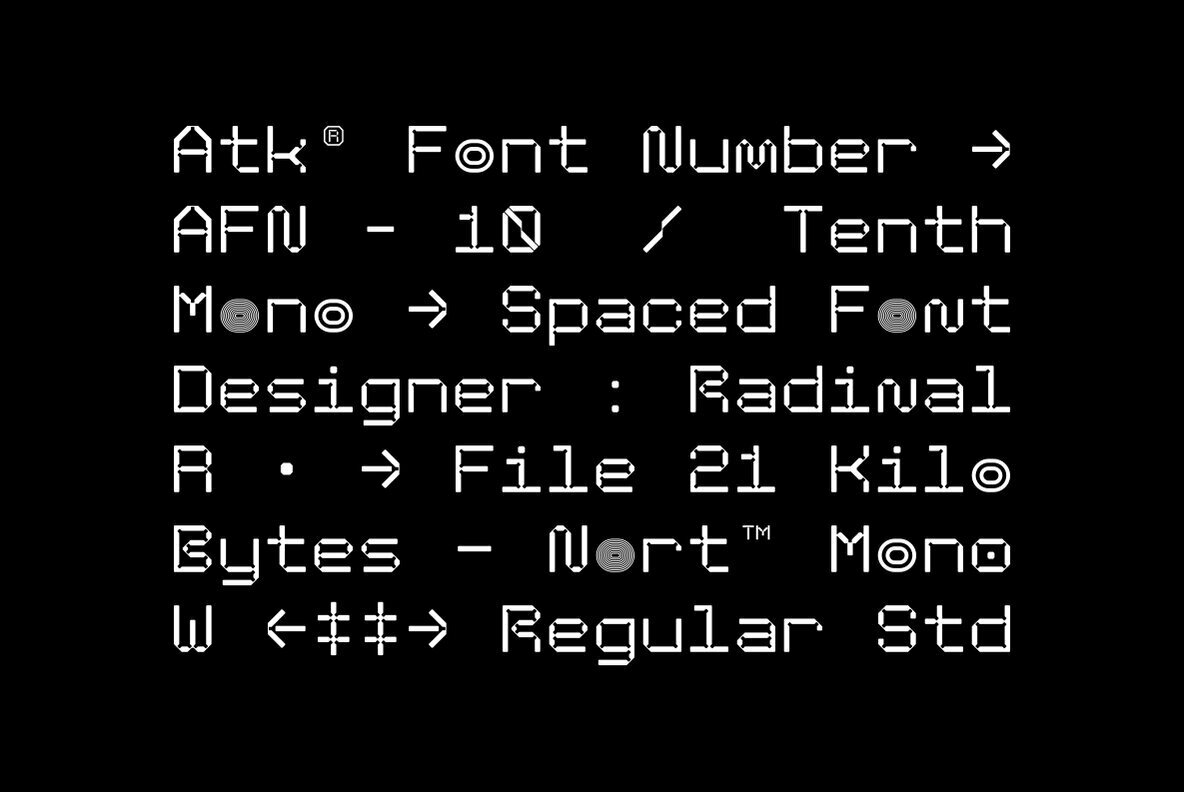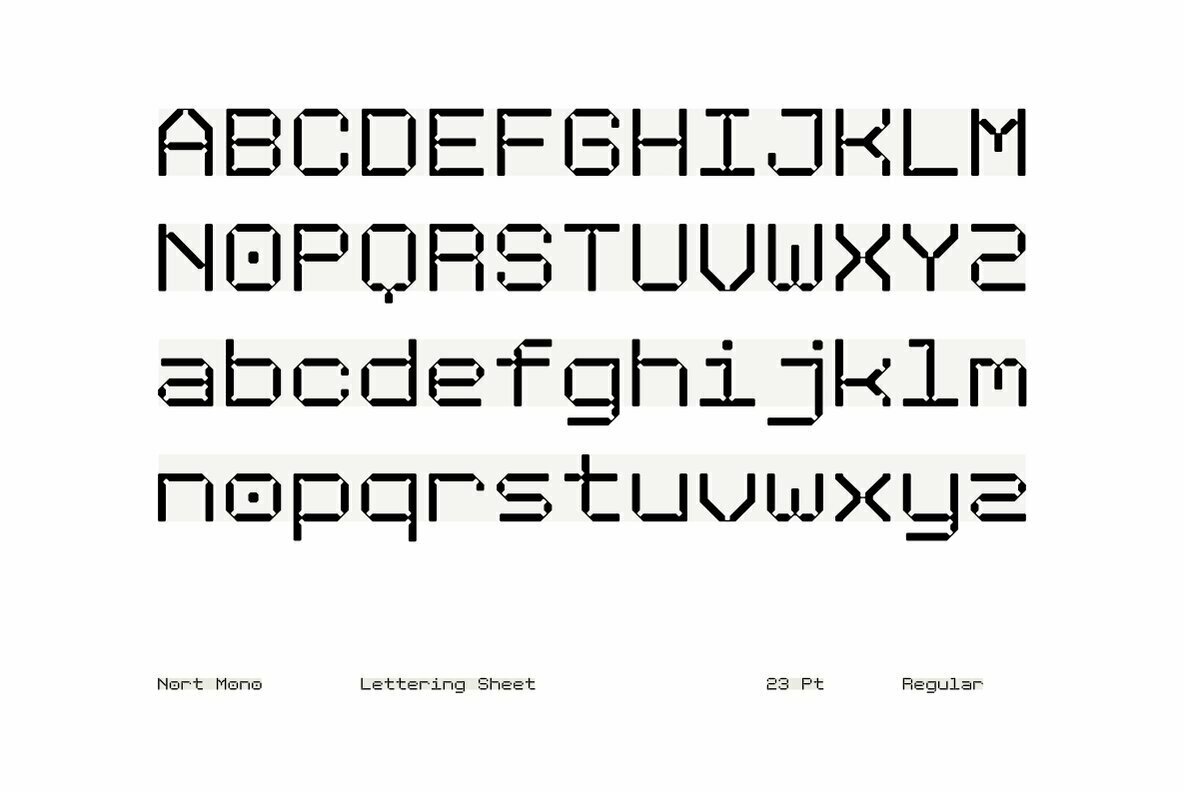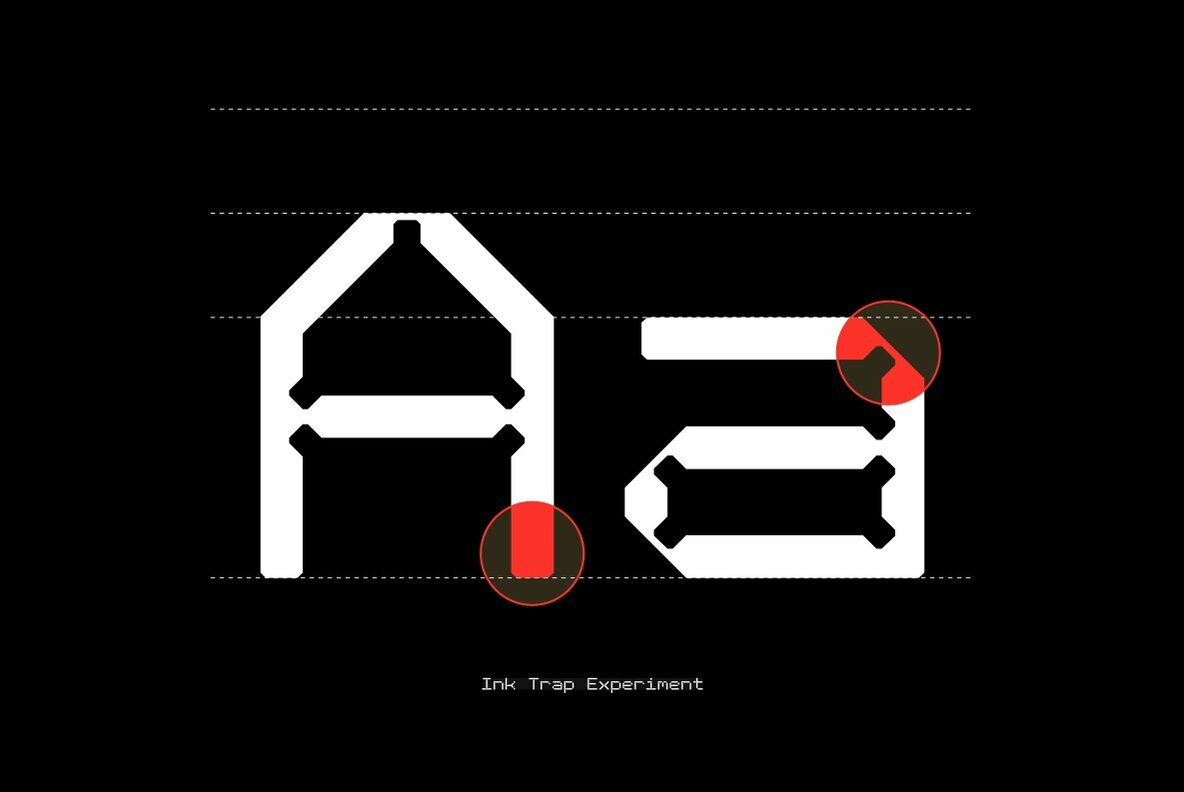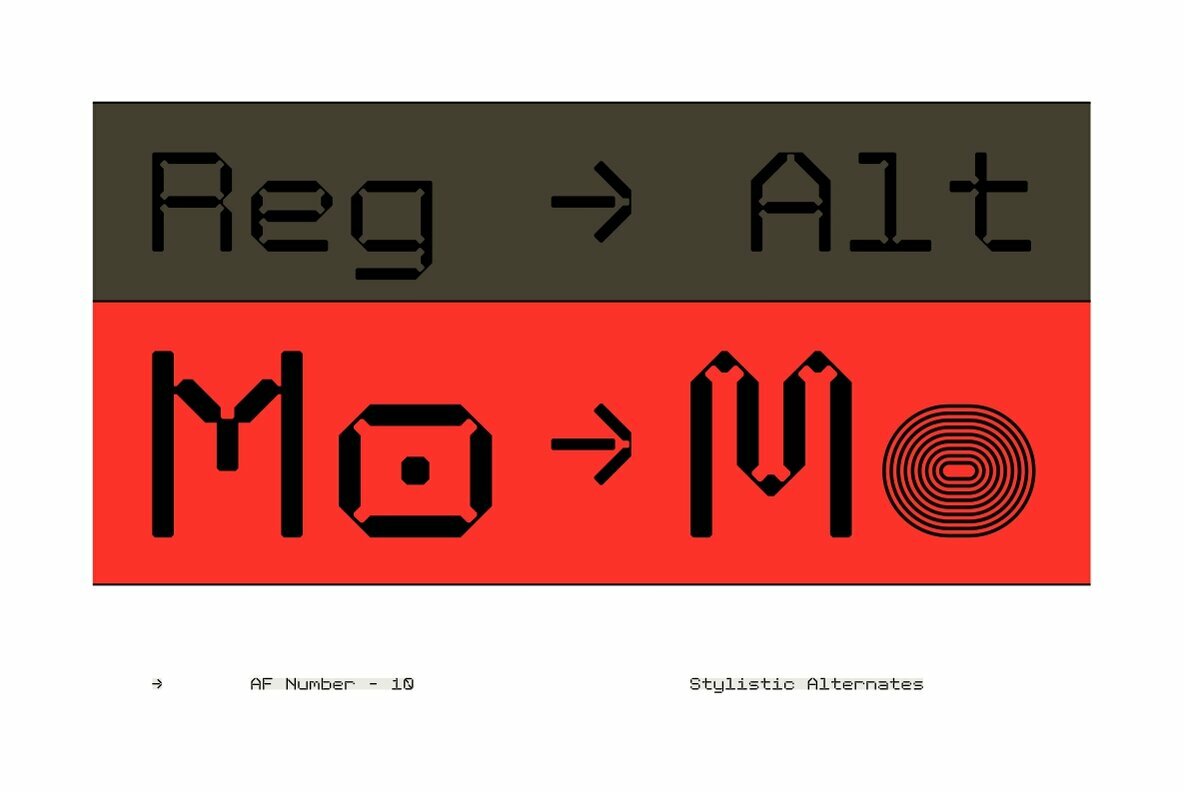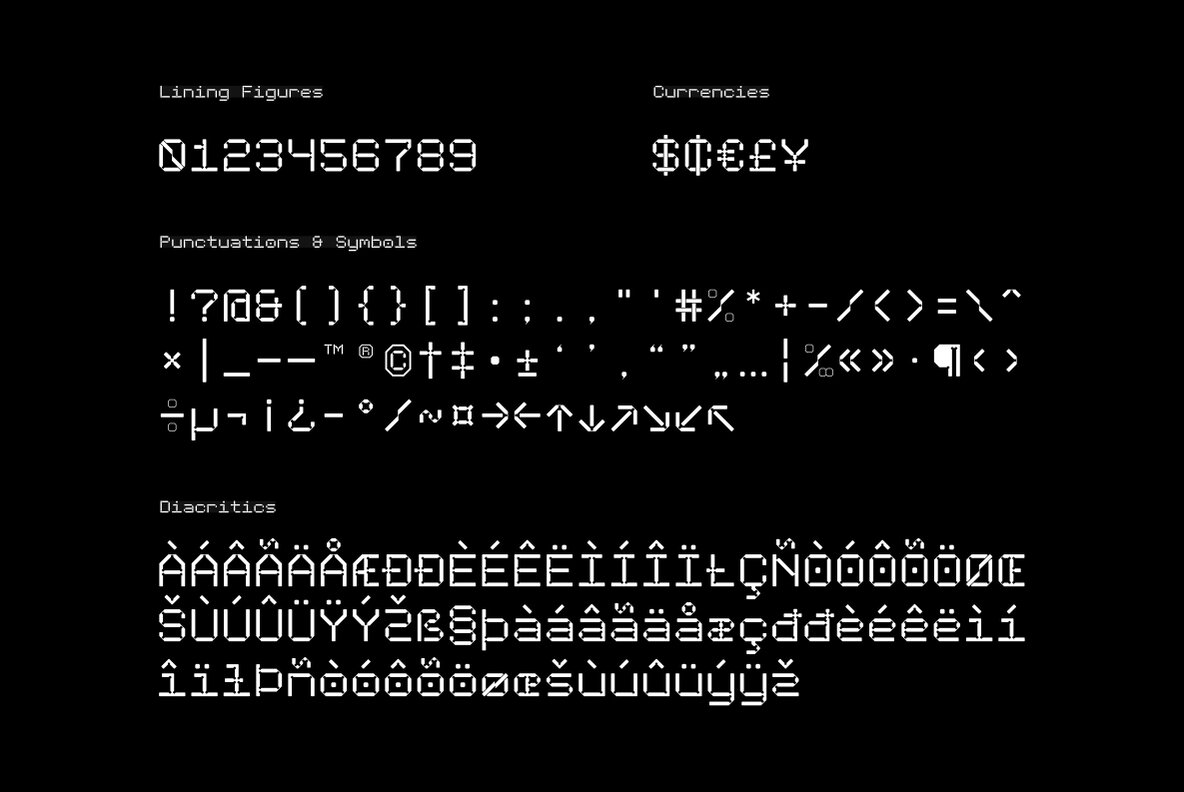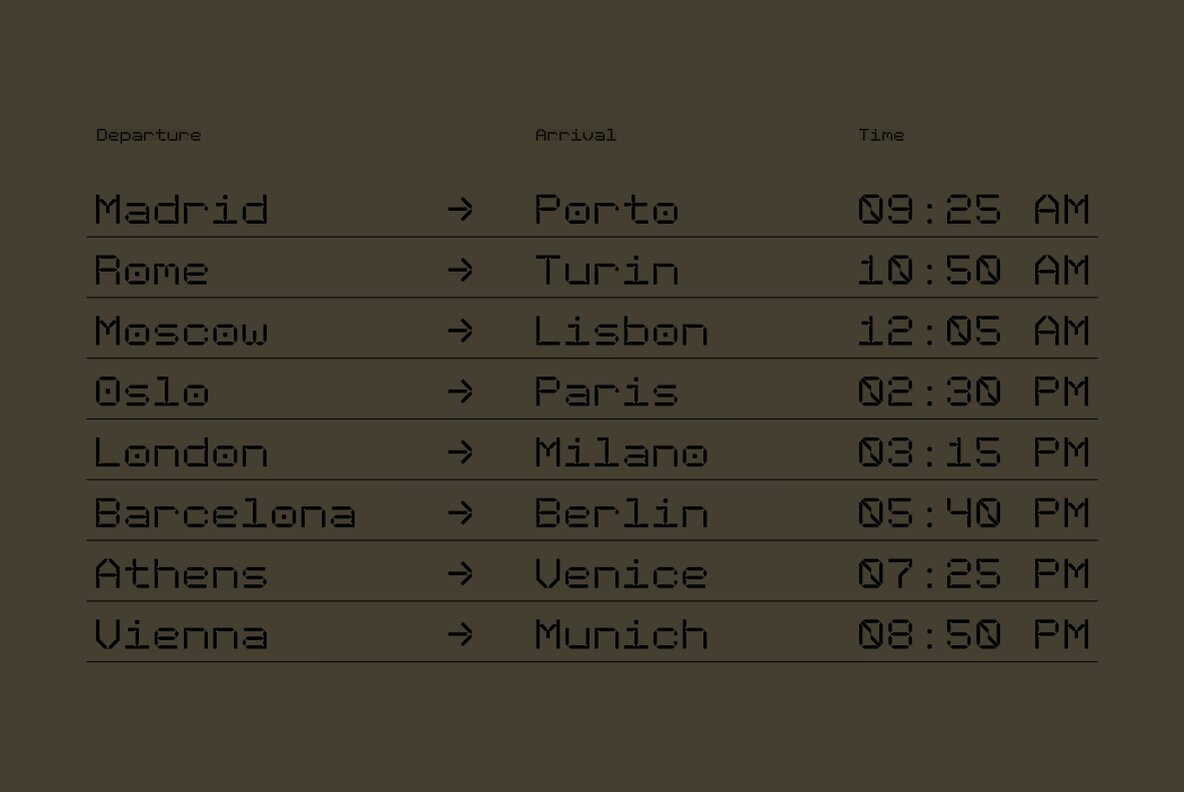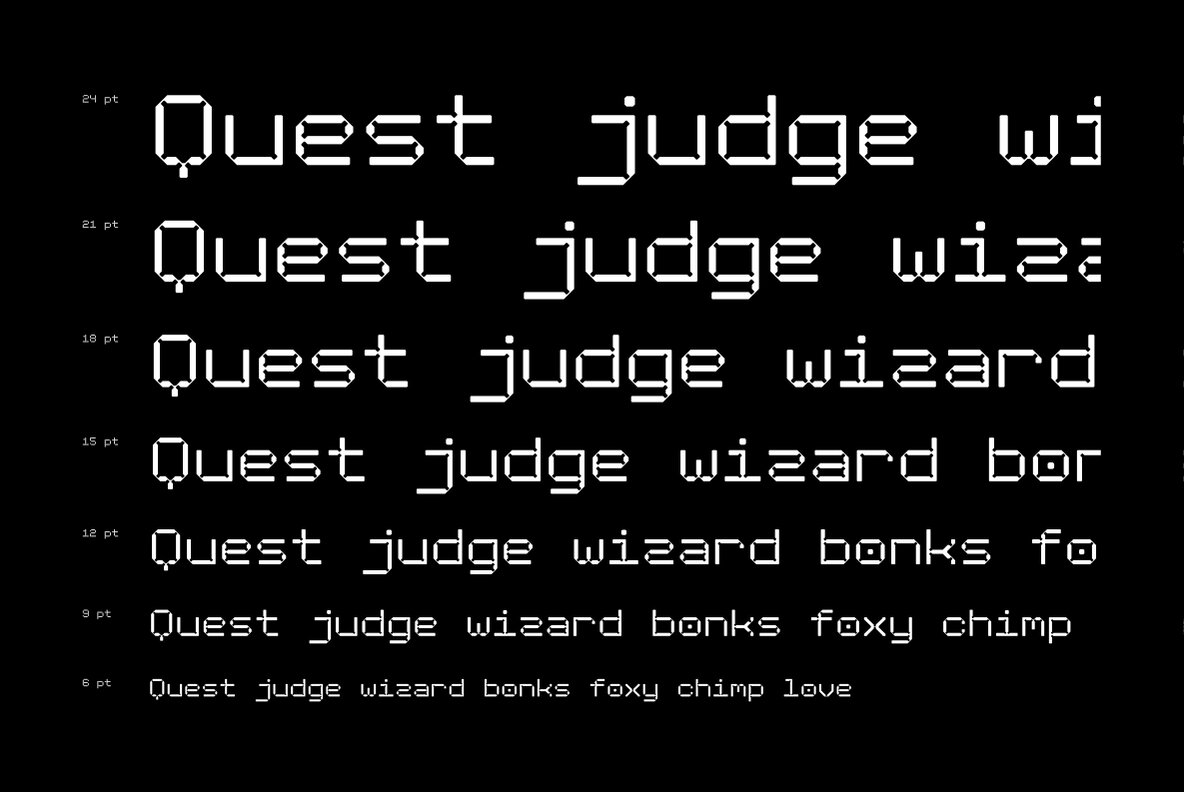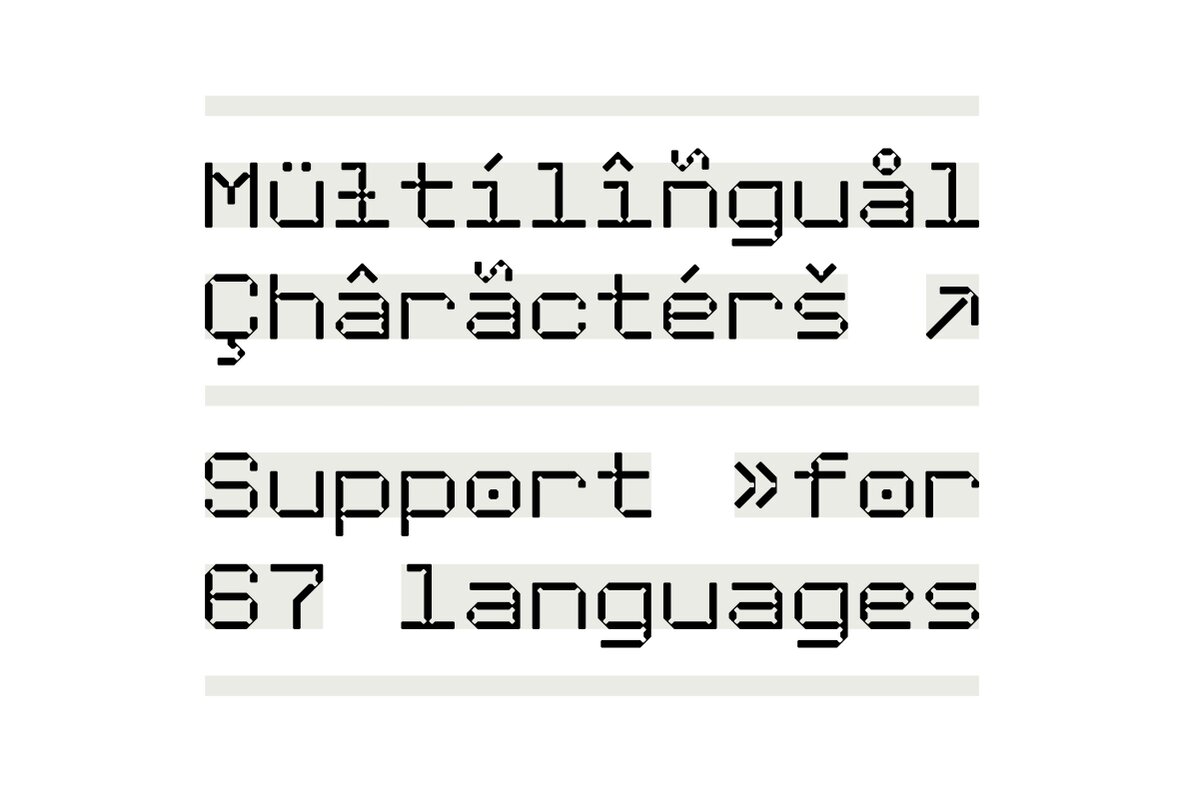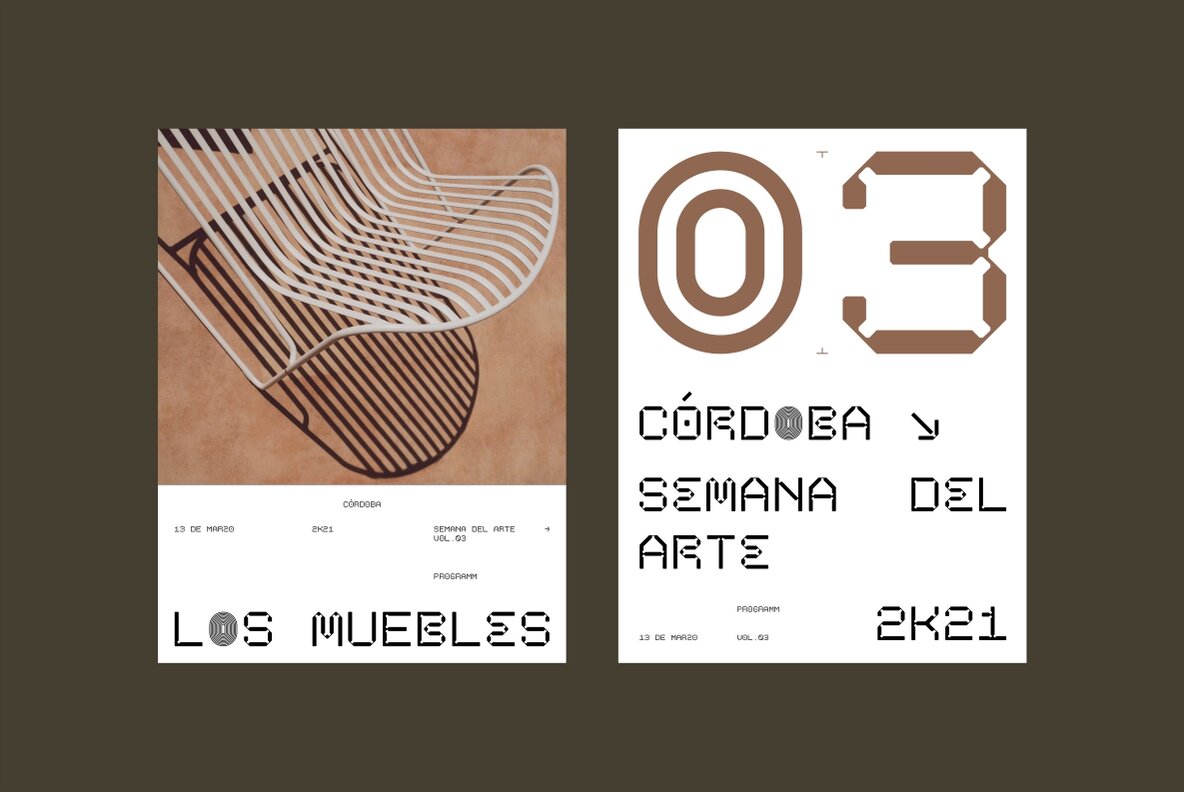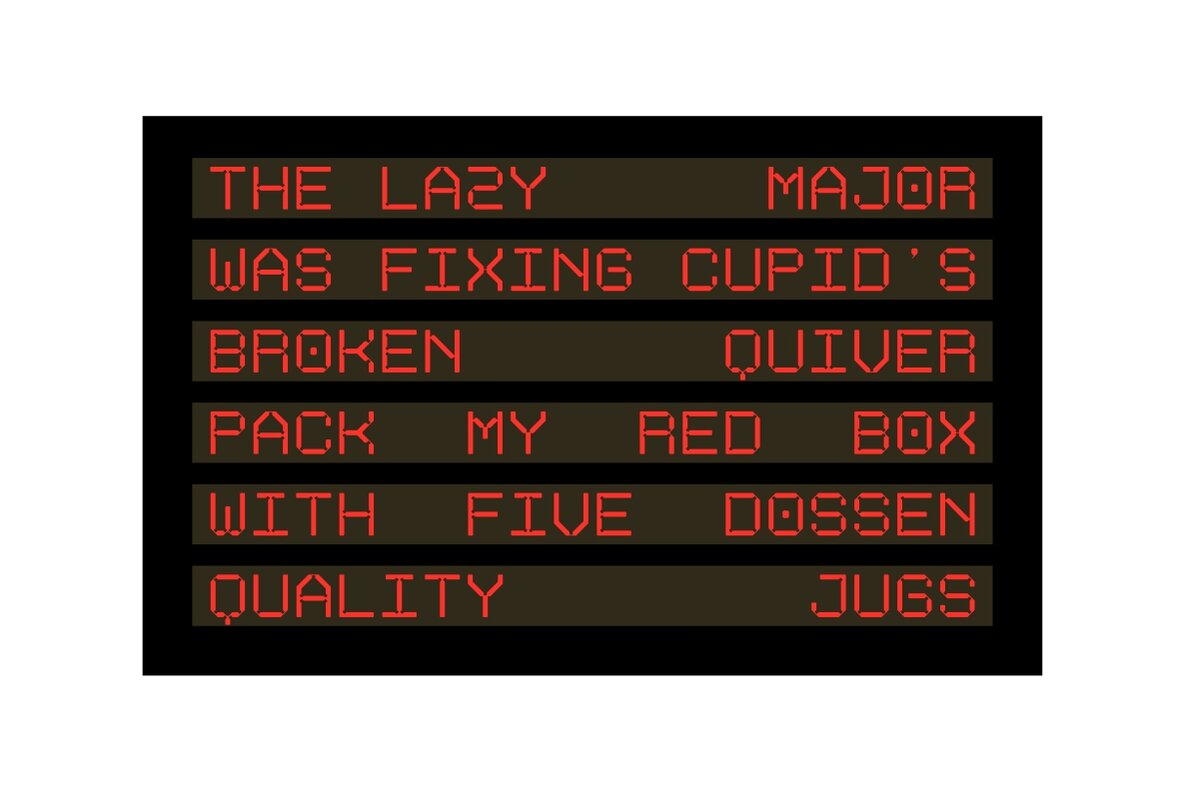
Nort Mono Font
Nort Mono Regular
Nort Mono™ is a tech-monospaced typeface with inktrap experiment and diagonal edges by Atk Studio. Created for tech display poster, informational video display, ads, and more. Come with single weight. This font covers over 67 languages.
ATK Studio is a type design practice founded in 2018 by Indonesian designer Radinal Riki. Based in Bandung, Indonesia, the studio focuses on experimental display and monospaced fonts, building a growing library of tech-inspired and unconventional typefaces. Known for its distinctive approach to letterform desi...